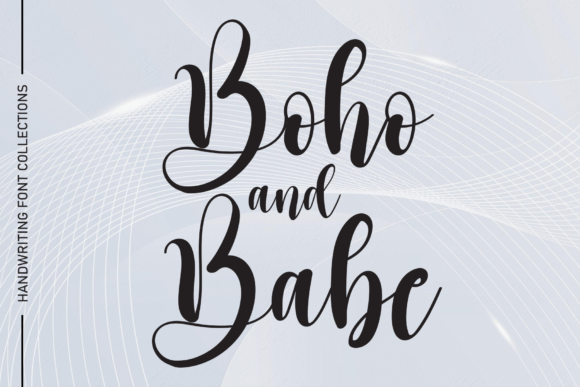
The Boho & Babe Font: A Fresh and Alluring Addition to Your Design Arsenal
An Honest Review of Boho & Babe
The Boho & Babe font has quickly become one of my go-to fonts for various design projects. Here’s what I love about it:
- ✨ Unique and eye-catching: Boho & Babe has a distinct, handcrafted feel that sets it apart from more traditional fonts.
- ✅ Versatile: This adaptable script font can be used for a wide range of applications, from greeting cards to headlines.
- 💫 Fresh and alluring: The font adds a touch of elegance and sophistication to any design.
While Boho & Babe is an excellent font, it’s not without its quirks:
- 🤔 Limited use in formal contexts: Due to its handwritten nature, Boho & Babe might not be the best choice for very formal or corporate designs.
- ⚠️ Requires careful kerning: As with any script font, kerning can be a bit tricky, especially when using it for longer texts.
The Story Behind Boho & Babe
The Boho & Babe font was created with the intention of capturing the free-spirited, bohemian vibe of the modern world. Inspired by vintage typography and hand-lettering, this font embodies a sense of freedom and creativity. The designer aimed to create a font that would be both elegant and approachable, perfect for adding a personal touch to various design projects.
| What is the Boho & Babe font best used for? | The Boho & Babe font is versatile and can be used for a wide range of applications, including greeting cards, headlines, and more. |
| Is Boho & Babe suitable for body text? | While Boho & Babe can be used for longer texts, it’s primarily designed for headlines and titles due to its script nature. |
| Does Boho & Babe support OpenType features? | Yes, Boho & Babe supports OpenType features like ligatures and stylistic alternates. |